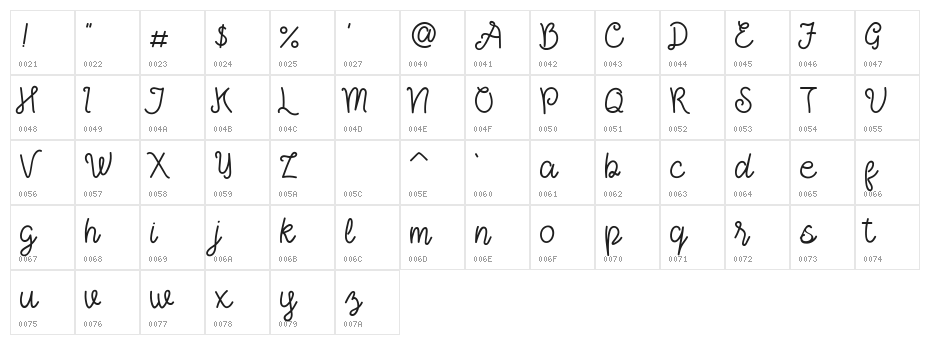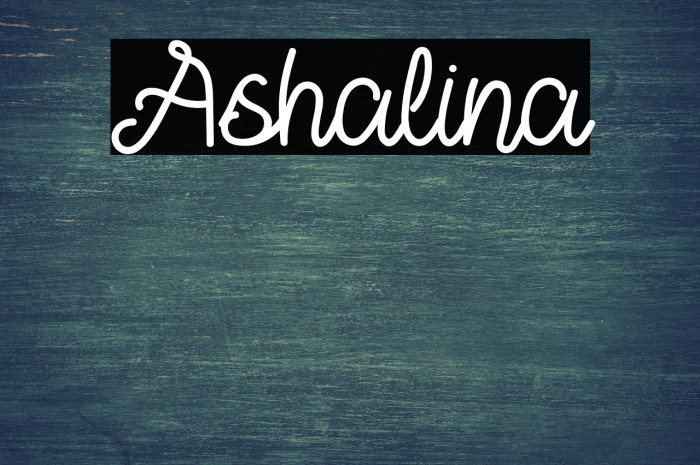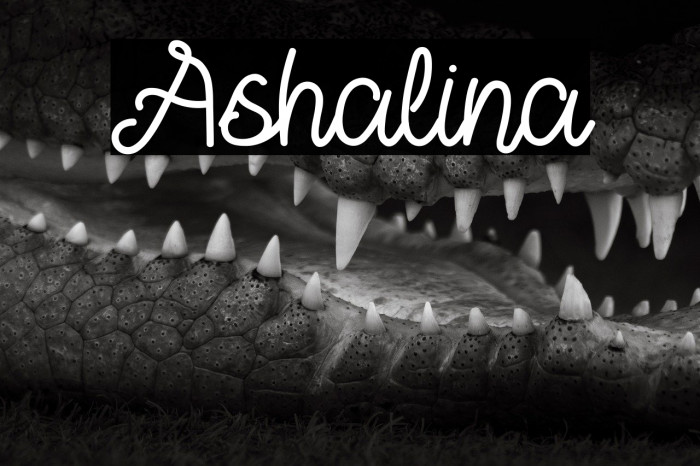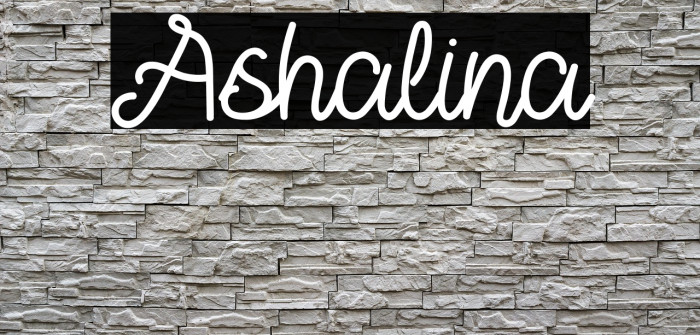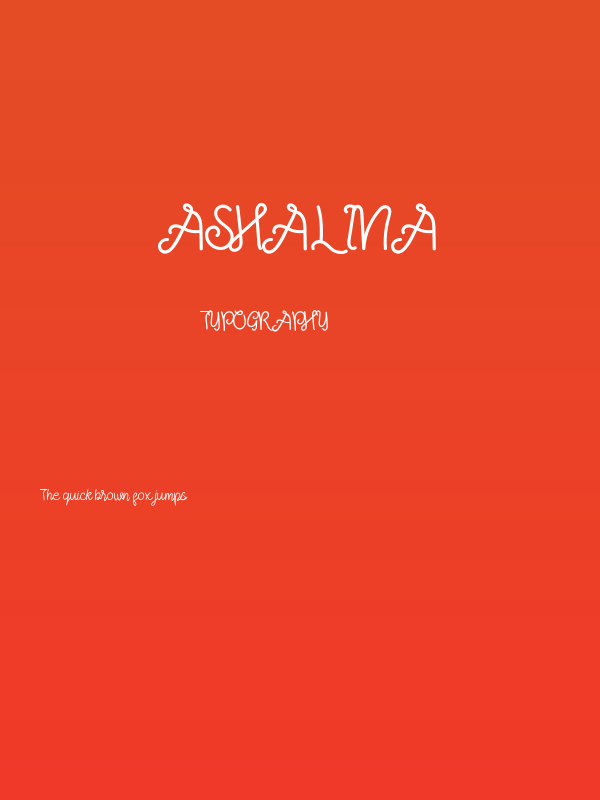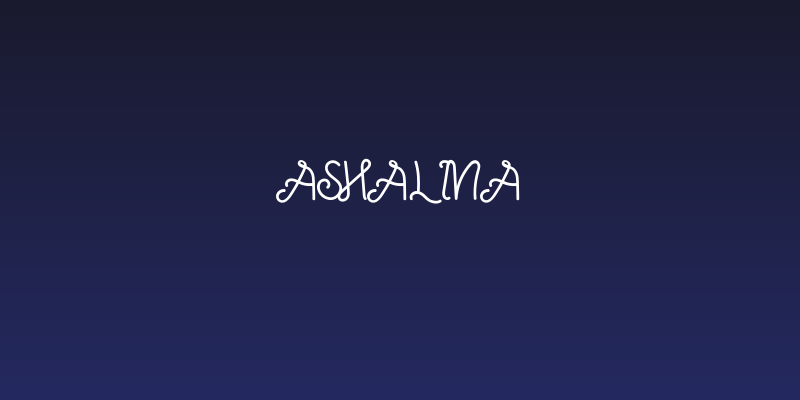
Ashalina Font
Ashalina Description
A playful and flowing script font with a handwritten style, featuring connected letters and a casual appearance.
| Overall Style | Casual, Decorative |
| Use Case | Logos, Headlines |
| Proposed Projects | Invitations, greeting cards, personal branding. |